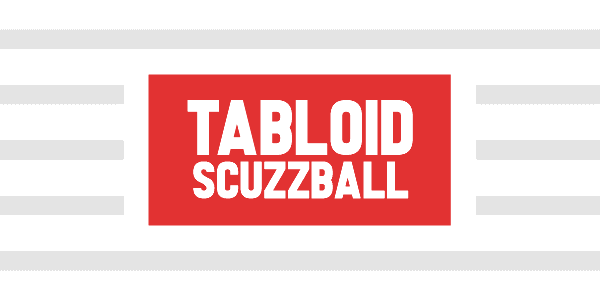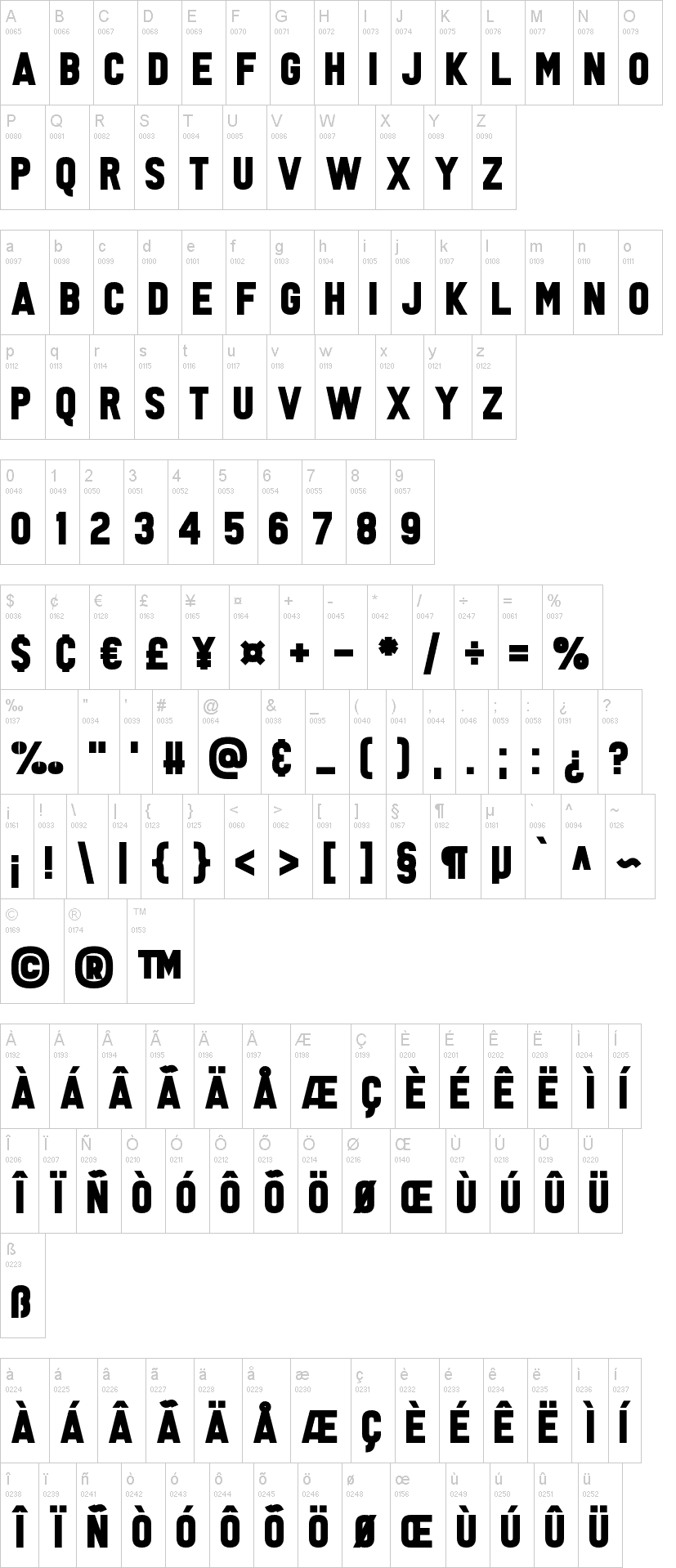
Tabloid Scuzzball is a high quality #Sans serif font that is designed by Chequered Ink and is available for free download and personal use. The free version provides all uppercase and lowercase letters and a few special characters too.